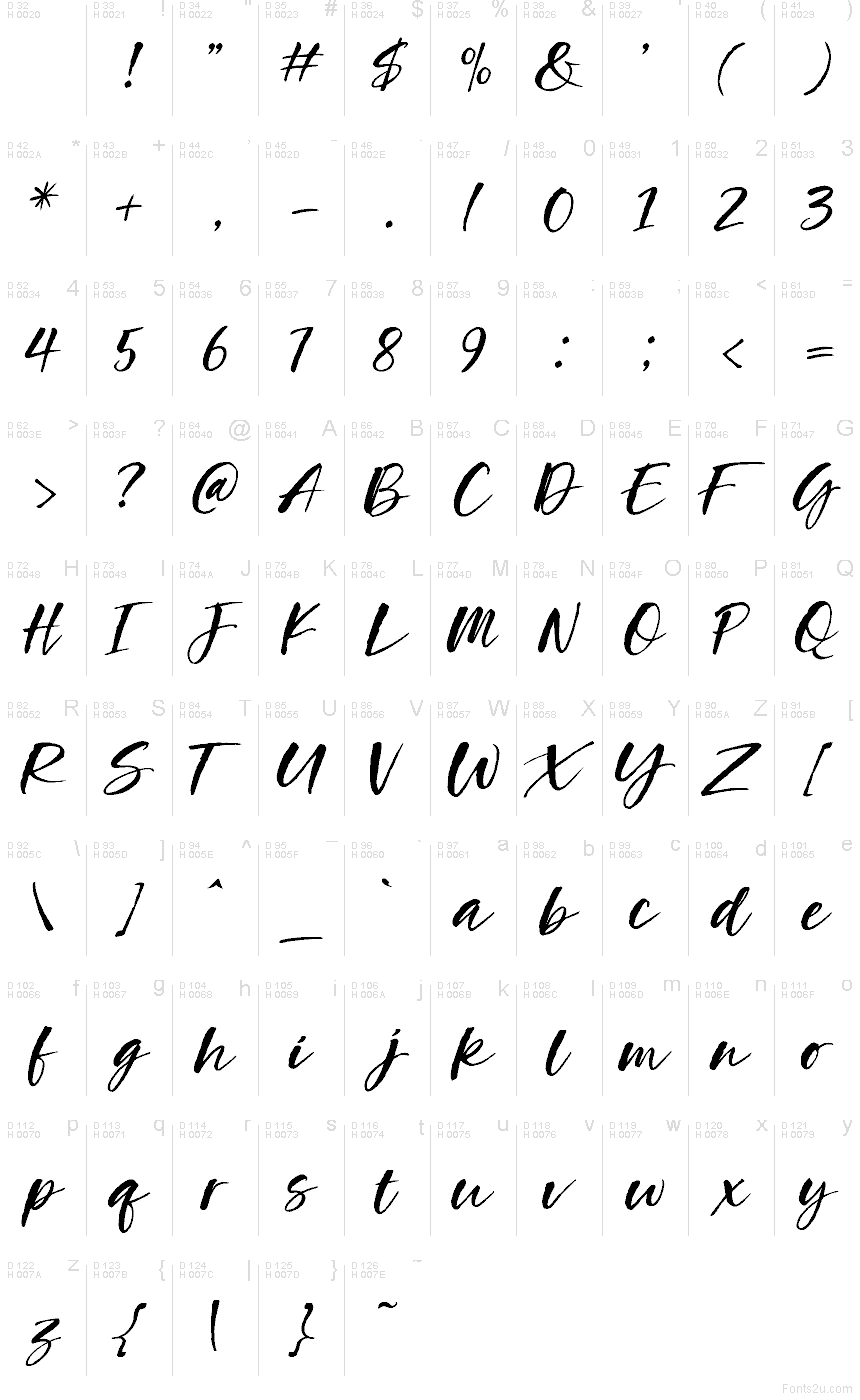
Fleur de Cerisier
Fleur de Cerisier is a free brush script font with the loose, swept rhythm of hand-painted lettering. The letters lean into broad, inky strokes and tapered flicks, mixing a quick left-to-right flow with soft curves that keep it feeling more written than polished.
It fits best where a little movement helps - boutique branding, beauty packaging, cafe menus, greeting cards, and cover lines that want a casual signature mood. As a free font, it also works for title cards or short pull quotes, since those long entry strokes and rounded joins give even a few words a distinctly handwritten presence.